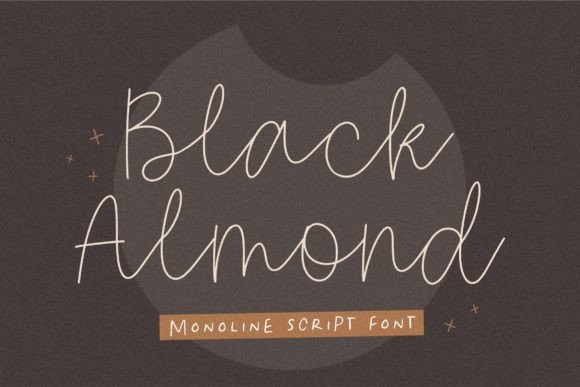
Introducing Black Almond Font, the ultimate script font for graphic design enthusiasts! Created by the talented Balpirick, this font is a true masterpiece that combines elegance, cleanliness, and a touch of sophistication. With its smooth and effortless lines, Black Almond will instantly elevate your design projects to new heights.
Are you tired of ordinary fonts that fail to capture the essence of modernity? Look no further! Black Almond is the perfect choice for those who crave a contemporary look that remains timeless in its appeal. Its monoline script style exudes a sense of simplicity and refinement, making it suitable for a wide range of design projects.
One of the greatest strengths of Black Almond is its versatility. Whether you're working on a logo, branding materials, invitations, or packaging, this font has got you covered. Its adaptability allows you to effortlessly convey the desired message and create a lasting impression on your target audience.
Immerse yourself in a world of creativity and bring your ideas to life with Black Almond Font. Its captivating curves and delicate strokes add a touch of artistry to every project. As you explore the possibilities, you'll find that this font effortlessly enhances the visual appeal of your designs, making them truly outstanding.
But what sets Black Almond apart from other fonts? It's not just about its visual appeal, but also the emotions it evokes. This font elicits a sense of elegance, sophistication, and professionalism, instantly captivating the attention of anyone who comes across it. Its unique style will make your designs stand out from the crowd and leave a lasting impression on your audience.
Imagine the impact your brand can make with Black Almond Font. It has the power to convey your message with clarity and style, ensuring that your brand identity remains etched in the minds of your customers. From sleek and modern designs to timeless and classic aesthetics, this font has the versatility to adapt to your brand's personality and bring it to life.